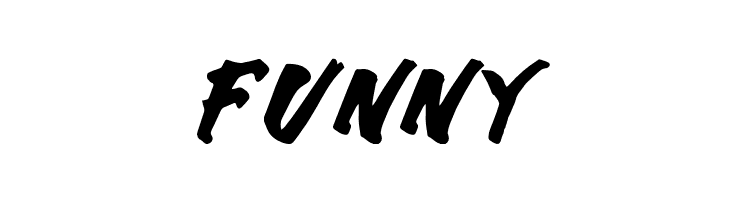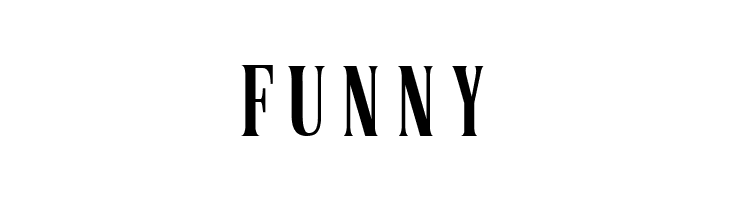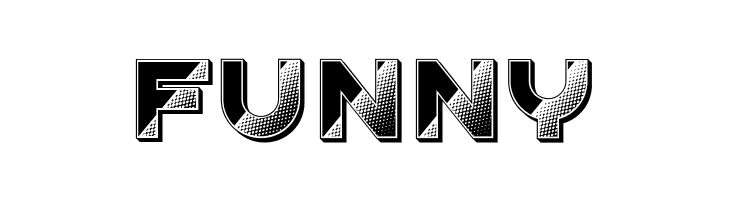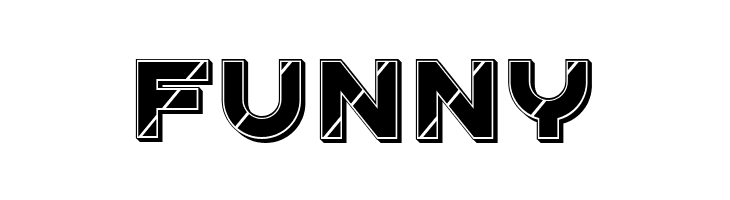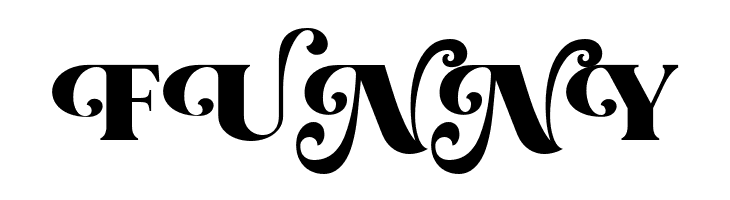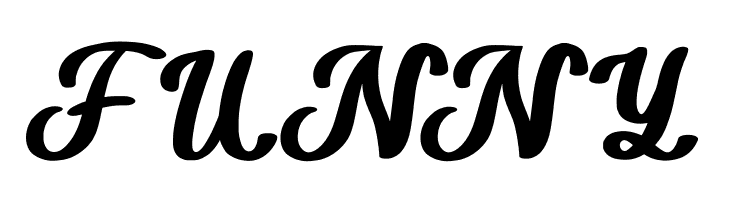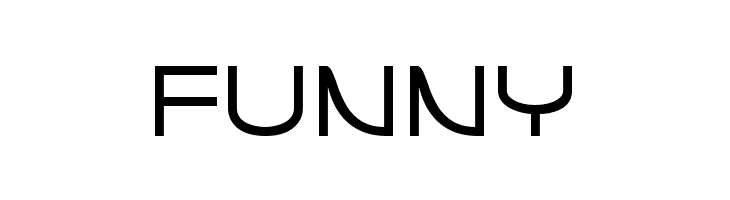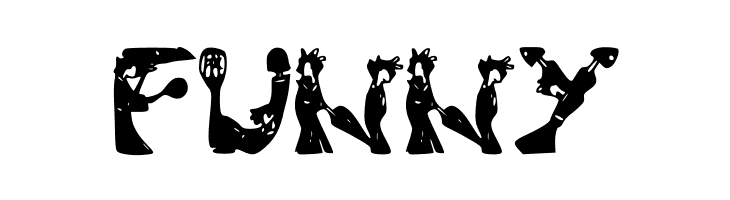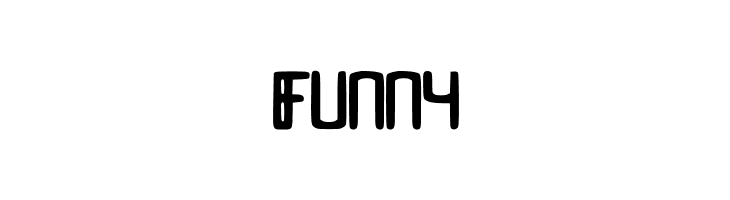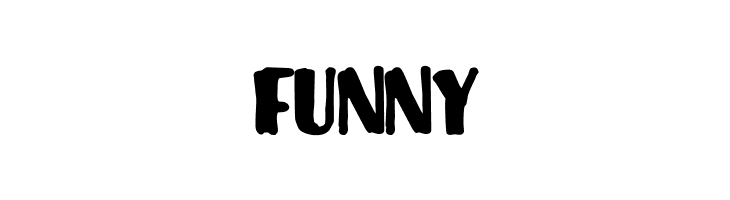
A modern, geometric font with clean lines and balanced spacing.
A modern, geometric outline font with uniform line thickness and excellent legibility.
A graceful and elegant handwritten script font with fluid, connected letters.
A bold, flowing script font with elegant curves and smooth connections.
A handwritten, cursive font with a casual and elegant style.
A bold, high-contrast serif font with a classic yet modern style.
A bold, playful font with rounded edges and a geometric structure.
A bold, modern font with geometric and rounded elements for a dynamic look.
A bold, italic font with a dynamic and modern style.
A bold, italic font with a modern, dynamic style and smooth curves.
A bold, playful font with thick, rounded strokes and a hand-drawn feel.
A bold, decorative font with ornate uppercase letters and strong lowercase characters.
A playful, handwritten font with tall, narrow letters and a casual style.
A modern, geometric font with rounded edges and consistent thickness.
A bold, dynamic brush script with expressive, hand-painted strokes.
A bold, geometric font with a filled, three-dimensional look and retro-futuristic style.
A bold, decorative font with a 3D effect and dotted textures.
A bold, dynamic font with thick, rounded strokes and a slightly slanted, energetic style.
A bold, brush-like font with dynamic and energetic strokes.
A bold, dynamic font with a brush-like, energetic style.
A bold, hand-drawn font with dynamic and expressive strokes.
A modern, rounded font with smooth, continuous lines and a playful aesthetic.
A bold, italic font with smooth, flowing curves and a modern, artistic style.
A modern, flowing italic font with sleek curves and consistent stroke width.
A modern, hollow font with smooth curves and a futuristic aesthetic.
A modern, fluid font with thin lines and elegant curves, perfect for contemporary designs.
A modern, minimalist font with geometric, continuous lines and rounded edges.
A sophisticated script font with fluid, cursive strokes and elegant loops.
A bold, high-contrast serif font with sharp, angular serifs and dramatic style.
A tall, narrow, and elegant condensed font with medium contrast and a refined style.
A condensed oblique font with sleek, elongated letterforms and moderate stroke contrast.
A bold, oblique font with high contrast and tight spacing, perfect for dynamic designs.
A bold, vintage-style font with consistent stroke width and a slightly condensed appearance.